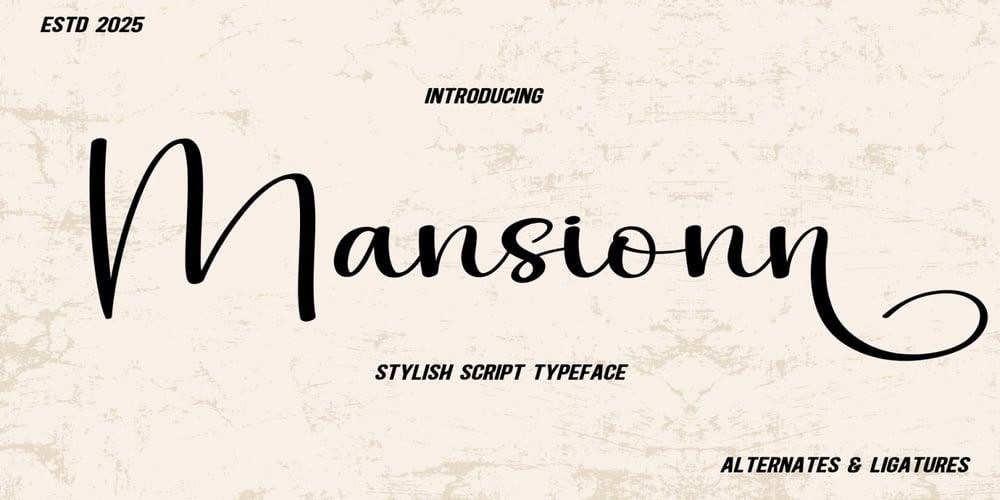
Mansionn
Mansionn font
Mansionn Font Family was designed by Stefan Pott and published by Dream Font. Mansionn contains 1 styles and family package options. Mansionn is a stylish and incredibly elegant script font. It looks stunning on wedding invitations, thank you cards, quotes, greeting cards, logos, business cards and every other design which needs a handwritten touch.